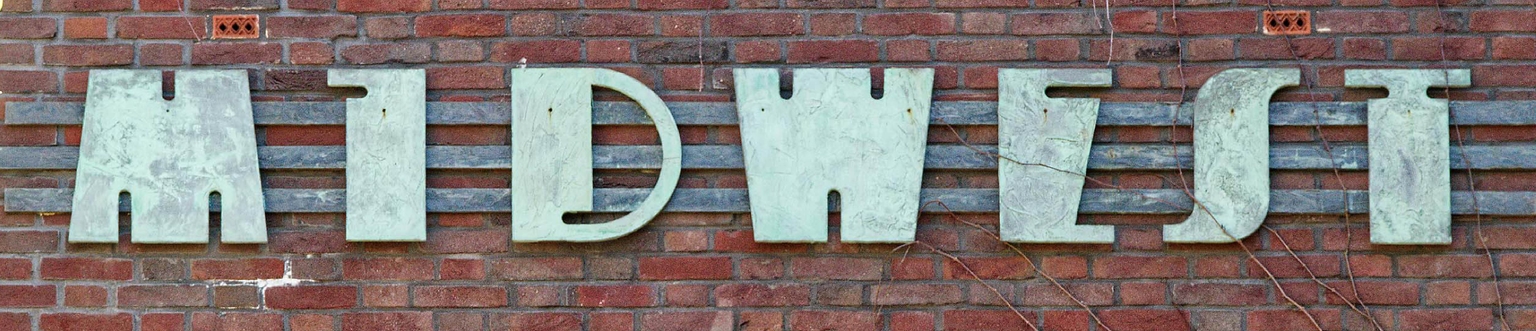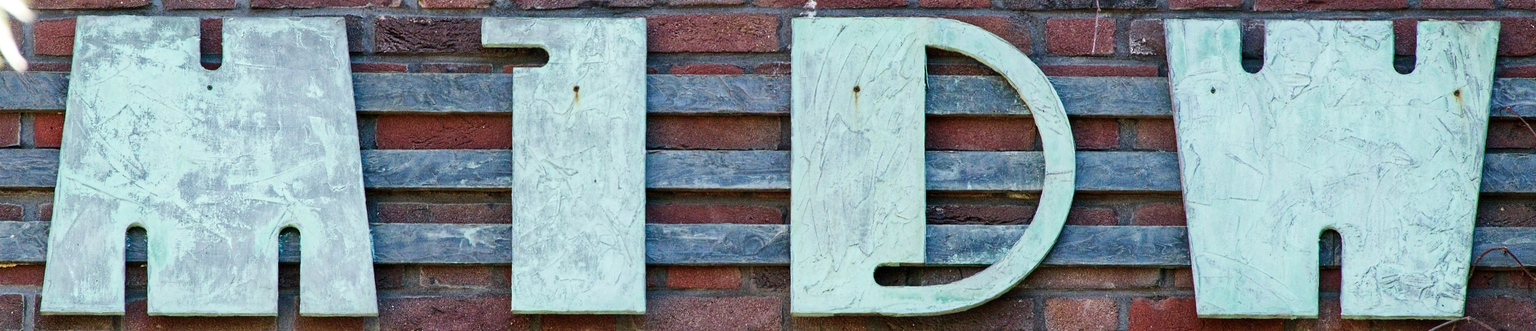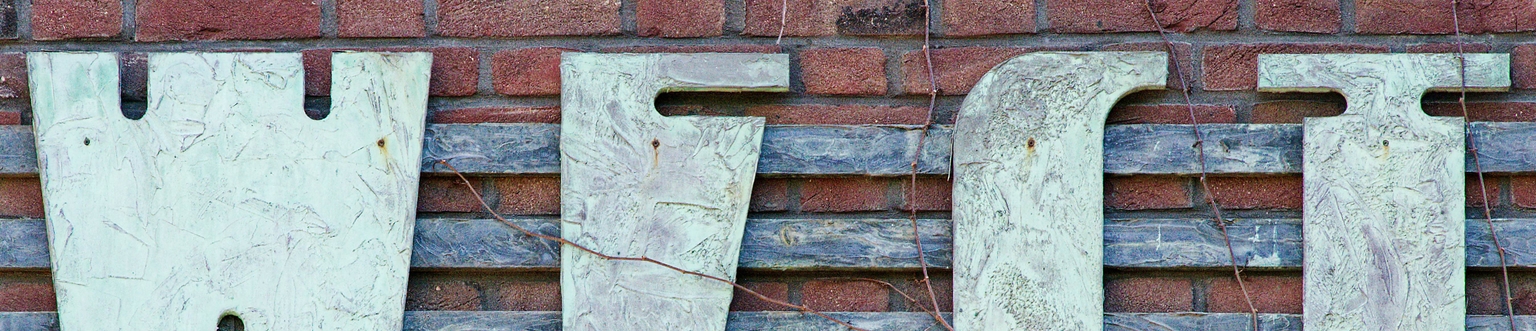
Midwestern
Midwestern is a modular, blockish display typeface based on the distinctive lettering created by Jochem Ruijgrok in 2018 for the façade of the community center Midwest in Amsterdam, located at Cabralstraat 1. The building itself—constructed in 1924 and designed by the Office of Public Works of the Municipality of Amsterdam—reflects architectural influences of the Amsterdam School.
Ramiro Espinoza developed Midwestern as a typographic interpretation of these façade letters, expanding the character set while preserving their sturdy modular logic. The typeface maintains the original’s compact rhythm and carved quality, making it a useful tool for designers seeking a bold, architectural typographic voice. Midwestern performs well in posters, signage, visual identities, websites, packaging, and editorial work where a solid, geometric tone is required.